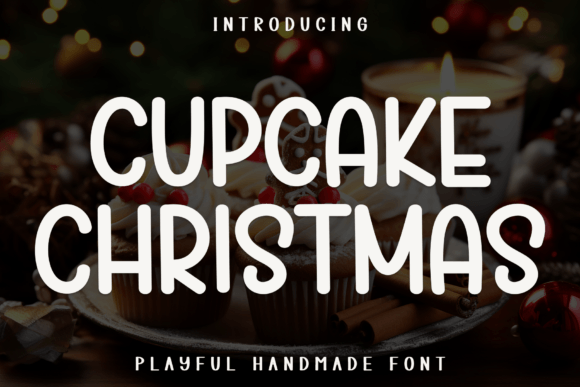
Cupcake Christmas Font: A Sweet and Friendly Handwritten Font for Your Holiday Designs
The holiday season is upon us, and with it comes the need for festive and fun designs that capture the spirit of Christmas. If you’re looking for a font that embodies the sweetness and joy of the season, look no further than the Cupcake Christmas font. This delightful handwritten font is perfect for adding a touch of whimsy and personality to your holiday designs.
What is Cupcake Christmas Font?
Cupcake Christmas is a sweet and friendly handwritten font that is sure to make your designs stand out. Its natural and unique style makes it incredibly fitting to a large pool of designs, from holiday cards and invitations to festive packaging and website headers. The font’s playful and approachable feel is reminiscent of a warm and cozy cupcake on a cold winter’s day.
Key Features of Cupcake Christmas Font
- Handwritten style: Cupcake Christmas has a beautiful, handwritten style that gives it a personal and friendly feel.
- Unique and natural: The font’s unique and natural style makes it perfect for a wide range of designs, from formal to informal.
- Sweet and festive: The font’s playful and festive feel makes it perfect for holiday designs and projects.
- Easily readable: Despite its playful style, Cupcake Christmas is easily readable, making it perfect for use in body text or headings.
Why Use Cupcake Christmas Font?
There are many reasons why you might want to use Cupcake Christmas font in your designs. Here are just a few:
Reasons to Use Cupcake Christmas Font
- Add a personal touch: The handwritten style of Cupcake Christmas font gives it a personal and friendly feel that’s perfect for adding a touch of personality to your designs.
- Stand out from the crowd: The font’s unique and playful style makes it sure to stand out from the crowd and grab attention.
- Perfect for holiday designs: The font’s festive and sweet feel makes it perfect for holiday designs and projects.
Cupcake Christmas Font Pairings
To get the most out of Cupcake Christmas font, you may want to consider pairing it with other fonts. Here are a few suggestions:
Font Pairings for Cupcake Christmas
- Open Sans: This clean and modern sans-serif font pairs well with the playful and handwritten style of Cupcake Christmas.
- Lato: This elegant and refined sans-serif font provides a nice contrast to the playful feel of Cupcake Christmas.
- Merriweather: This classic and elegant serif font pairs well with the friendly and approachable feel of Cupcake Christmas.
Cupcake Christmas Font Alternatives
If you like Cupcake Christmas font, you may also want to consider the following alternatives:
Alternatives to Cupcake Christmas Font
- Kristi: This sweet and playful handwritten font has a similar feel to Cupcake Christmas.
- Karla: This elegant and refined handwritten font has a more formal feel than Cupcake Christmas.
- Alex Brush: This beautiful and elegant handwritten font has a more sophisticated feel than Cupcake Christmas.
Cupcake Christmas font is a sweet and friendly handwritten font that’s perfect for adding a touch of personality to your holiday designs. Its unique and natural style makes it incredibly fitting to a large pool of designs, from formal to informal. With its easy-to-use and highly readable style, Cupcake Christmas font is sure to become a favorite in your design toolkit.